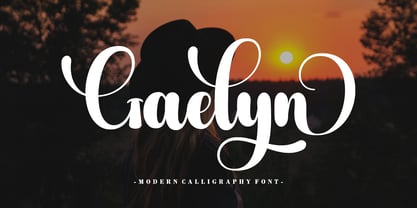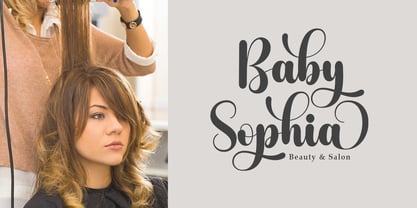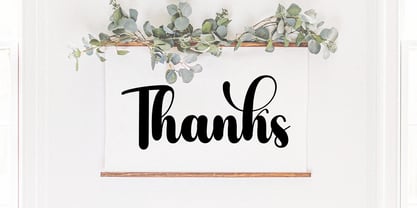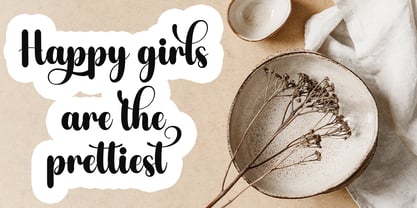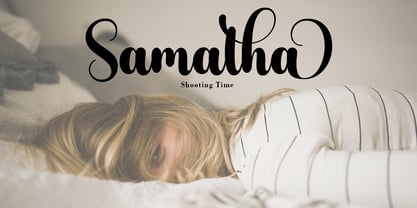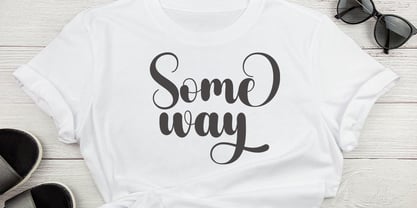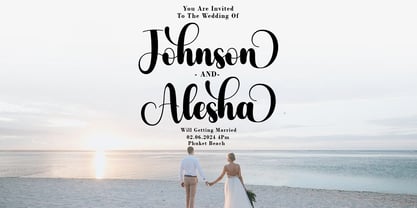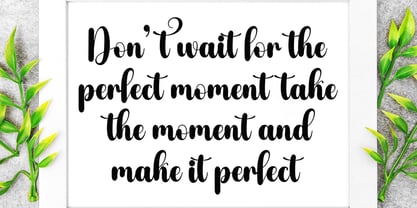
Gaelyn Script
by Good Design
The Gaelyn Script Font Family was designed by Agus Pujiyono and published by Good Design. Gaelyn Script contains 1 styles. More about this family
Gaelyn Script is calligraphy font with a classic style and a touch of elegance, inspired by the handwriting of ancient manuscripts. Carefully designed to work together in harmony that makes it very suitable for wedding media, book covers, greeting cards, logos, branding, business cards and certificates, even for any design work that requires a classic, formal or luxurious.
Designers: Agus Pujiyono
Foundry: Good Design